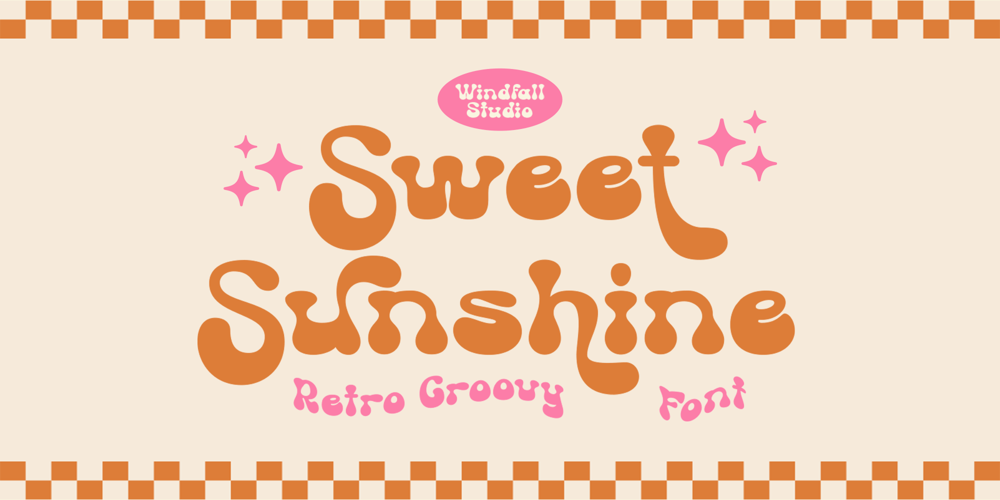
Sweet Sunshine Font Family was designed by Anggia Putri Premitasari and published by Windfall Studio. Sweet Sunshine contains 1 styles and family package options. Sweet Sunshine is a stylish retro font that radiates the warmth and charm of yesteryears with a contemporary twist. This font captures the essence of vintage typography, infused with modern flair, perfect for adding a touch of nostalgia to your designs. With its playful curves and elegant lines, Sweet Sunshyne brings a sense of joy and sophistication to any project.